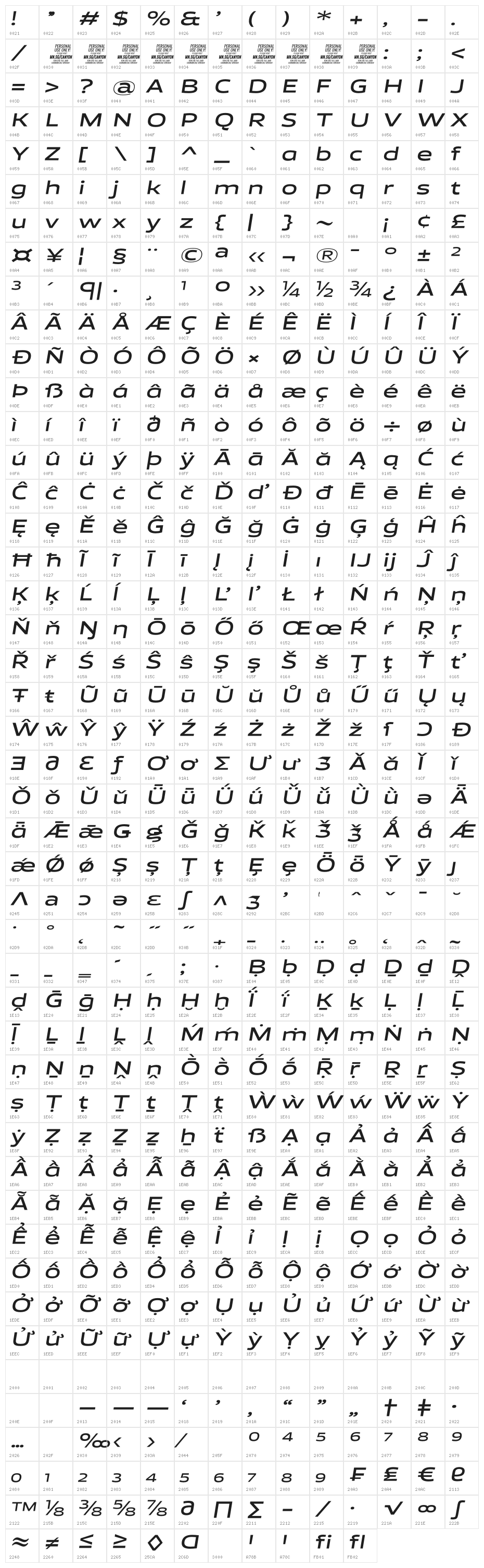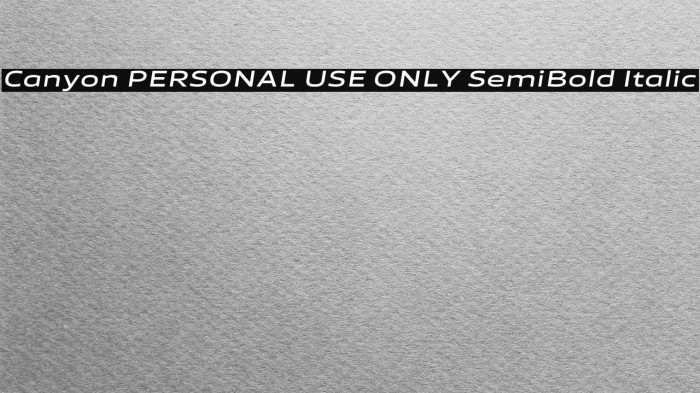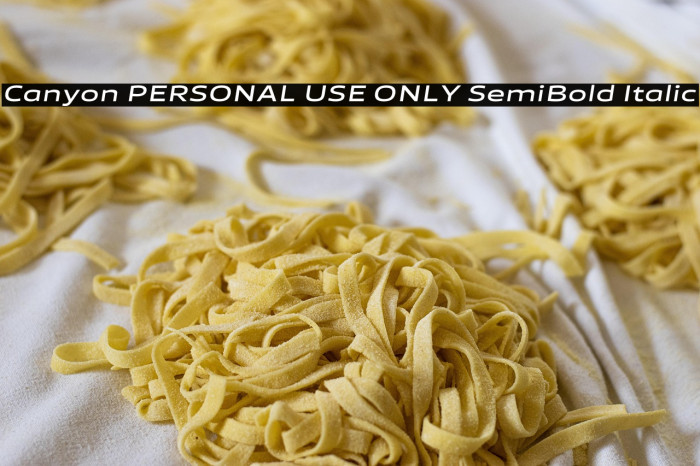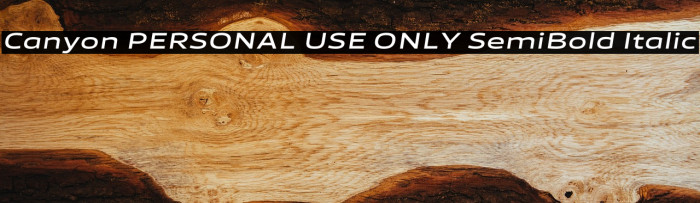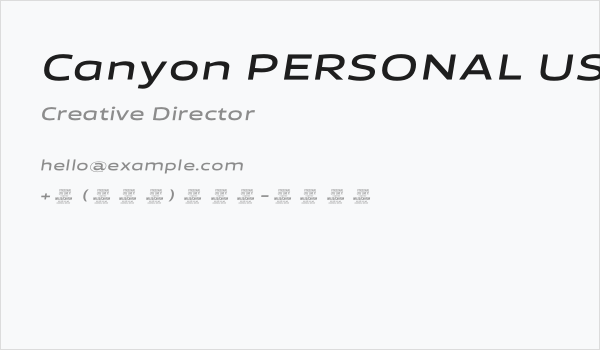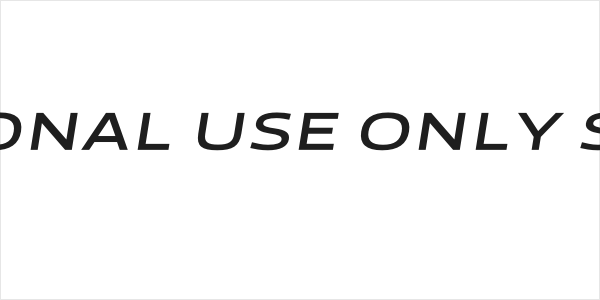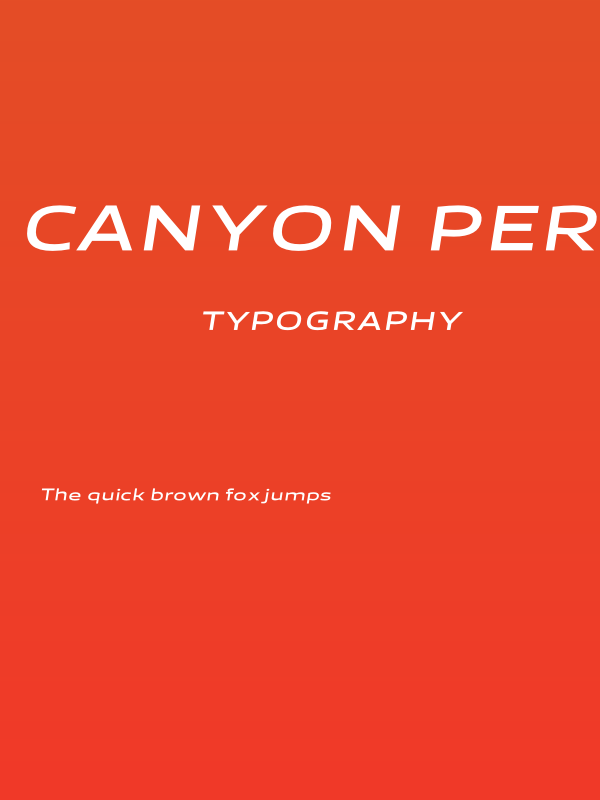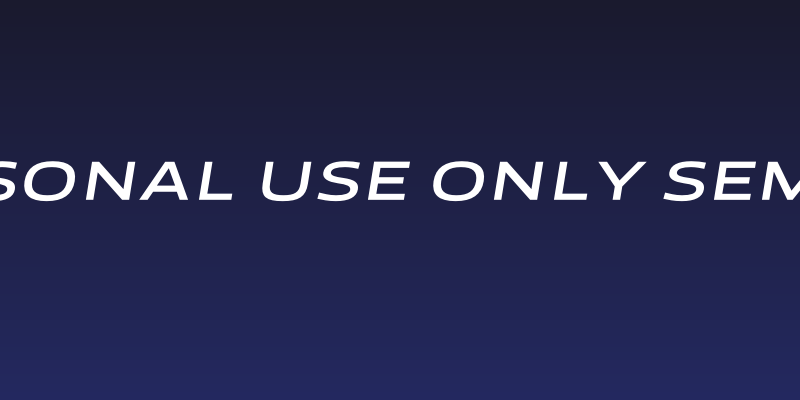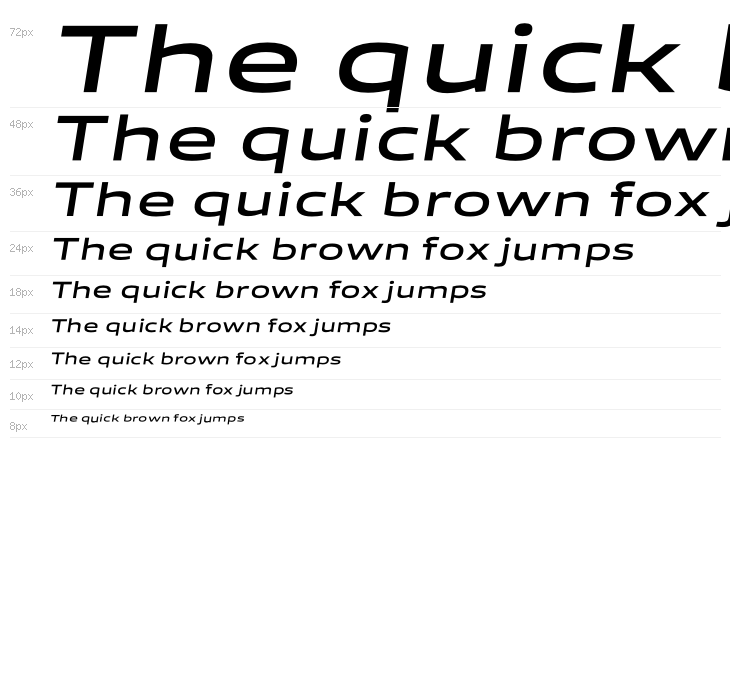
Canyon PERSONAL USE ONLY SemiBold Italic Font
Canyon PERSONAL USE ONLY SemiBold Italic Description
This font features a sleek and modern design with a semi-bold weight and italic style. The characters are slightly slanted, giving a sense of motion and dynamism. The uppercase letters are well-proportioned, and the lowercase letters maintain a consistent flow, enhancing readability. The numbers and special characters are designed to match the overall style, ensuring uniformity across different text elements. The font's clean lines and subtle curves make it suitable for a variety of applications, from digital to print media.
| Use Case | Headlines, Logos, Digital Media |
| Proposed Projects | Ideal for branding, advertising, digital media, and editorial design projects. |